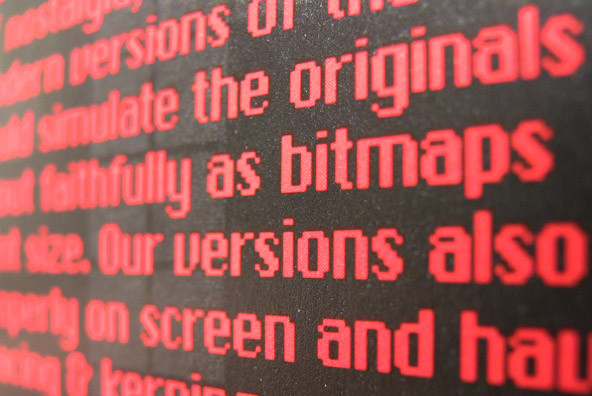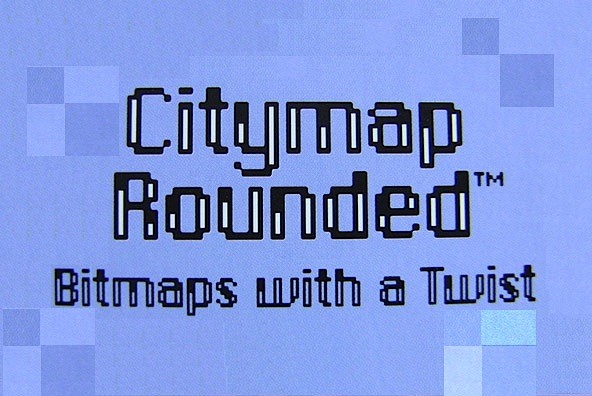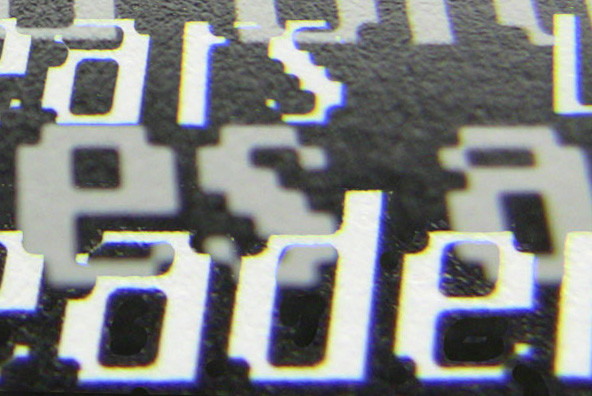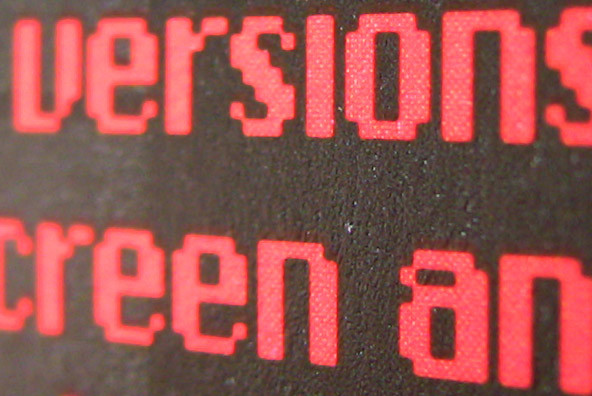
Citymap Rounded
Foundry: TypeArt
The original Macintosh computers originally came with a system font, selected because it had a very legible and pleasant looking bitmap.
The original bitmapped font got replaced somewhere along the way with a TrueType version which renders without the jagged edges. This font family is a simulation original bitmap version which can now be printed faithfully as a bitmap at any pointsize and in a form that can be viewed properly as a bitmap in WYSIWYG mode (even at larger point sizes). These fonts also have proper spacing and kerning (something which was never true of the original font), allowing you to set quite pleasing text for print documents. As a further bonus, oblique versions of the bitmaps were produced, allowing you the opportunity to ponder this incredible digital paradox.
WHY ARE THEY ROUNDED?
These rounded bitmaps were produced because the curves are small enough that at small point sizes the font looks similar to the original bitmap font, while at larger point sizes it has a softer and more elegant "non-bit" look.
OTHER VERSIONS
Both the Light and Inline versions were created to provide interesting and artsy variations of the pseudo-bitmap theme. They allow for numerous options when using these fonts for modern design applications.
ABOUT TRACKING
Citymap Rounded™ has been spaced and kerned in anticipation that it will be used at larger point sizes, where the elegance of the "curved bitmaps" can be most appreciated. When using this font at smaller, text point sizes, we recommend that you increase the tracking of the font slightly.
FULL CHARACTER SET
Each font in the Citymap Rounded™ family has a full character set of 232+ letterforms, with all characters designed in the style of the font.